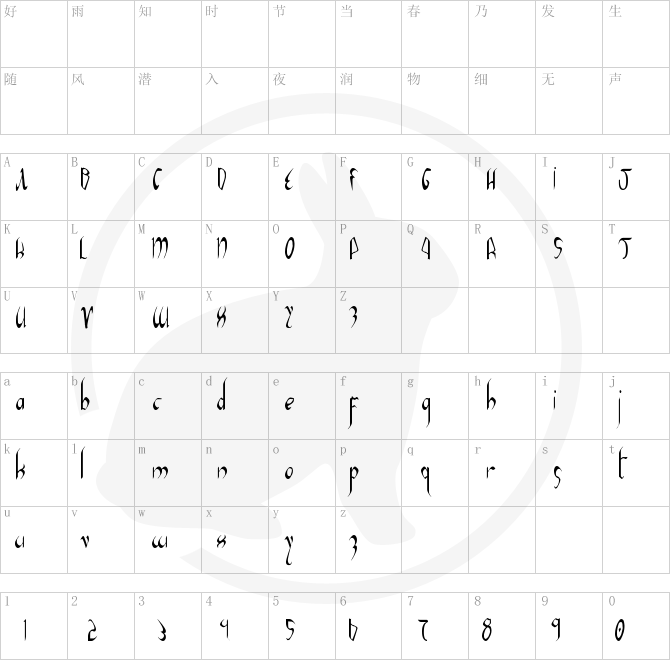
• Font Name:Xaphan II Condensed
• Full Name:Xaphan II Condensed
Xaphan-II-Condensed.ttf is a very beautiful artistic font, Xaphan-II-Condensed.ttf is widely used in the design and printing of various books and pictures,Xaphan-II-Condensed.ttf has a strong visual impact,Xaphan-II-Condensed.ttf is a commonly used font in newspapers, magazines and books, and is used in posters, e-commerce Poster design, store design, logo design, font design and other fields.Xaphan-II-Condensed.